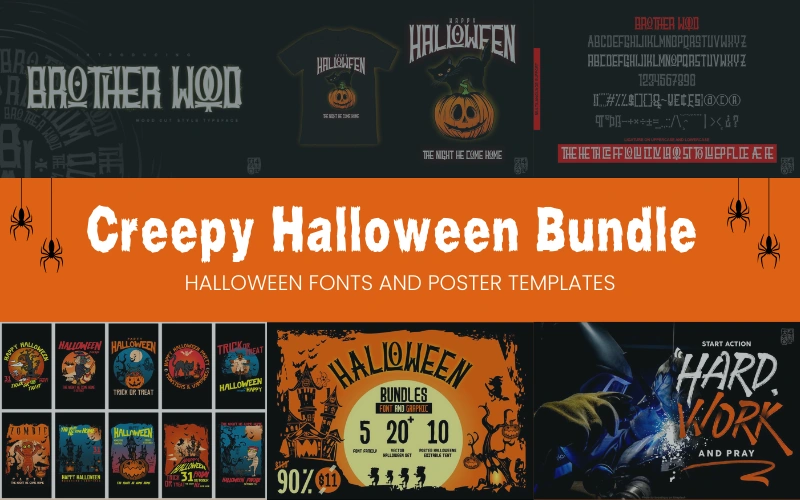
Creepy Halloween Fonts and Posters
Bring the chills to your designs. This Halloween bundle includes 5 haunting font families plus 10 professionally crafted poster and badge templates — everything you need for spooky parties, seasonal marketing, and eerie DIY projects.
• BrotherWood Font Family
• House Of Glory Font Family
• Industrial Sans Font Family
• Pumpkin’s Brush Font Family
• Stronghold Brush Font Family
Use cases / Examples
• Trick-or-Treat posts
• Halloween sale banners
• Scary social media graphics
• Halloween parade & event posters
• Halloween party flyers
• Witchy-themed posts
• Phone cover designs
• Printed tote bags and merchandise